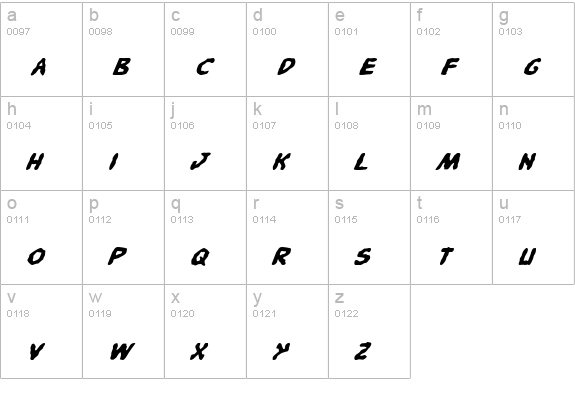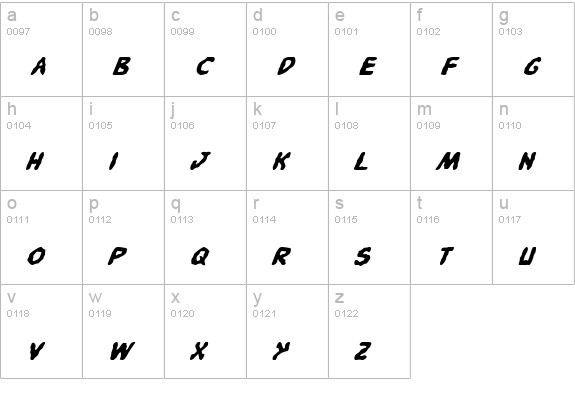
Pandemonious Puffery Italic Font Details
Pandemonious Puffery Italic is a distinctive, italic variant in the Pandemonious typeface family \xE2\x80\x94 well suited to design and typography projects.
Introducing Pandemonious Puffery Italic, a whimsical and enchanting font that will add a touch of magic to any design project. With its elegant and flowing letterforms, this font is perfect for adding a touch of sophistication to your creative endeavors. Pandemonious Puffery Italic stands out from the crowd with its unique and playful style. Its exaggerated curves and exaggerated strokes give each letter a sense of movement and energy, making it a truly eye-catching choice for titles, logos, and headlines. The versatility of Pandemonious Puffery Italic knows no bounds. Whether you're designing a poster for a children's event, creating a dreamy wedding invitation, or crafting an eye-catching social media post, this font will bring your ideas to life with its whimsical charm. But what makes Pandemonious Puffery Italic even more enticing? It's absolutely free! Yes, you read that right. This delightful font is freely available to download at FontsMarket.com, allowing you to unleash your creativity without breaking the bank. So what are you waiting for? Embrace the magic of Pandemonious Puffery Italic and let your imagination run wild. Download this enchanting font today and add a touch of wonder to your next design project.